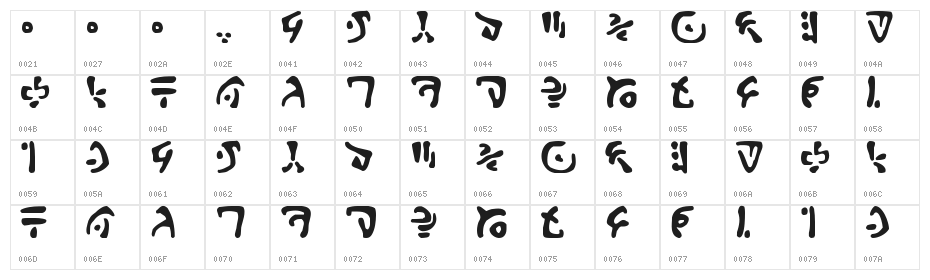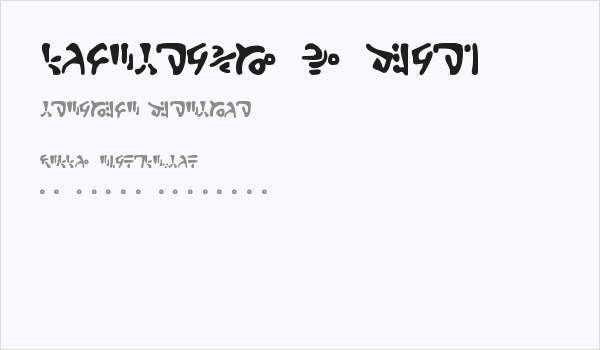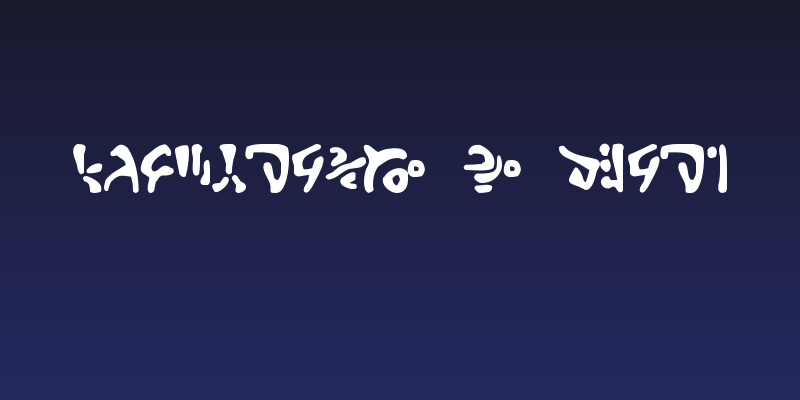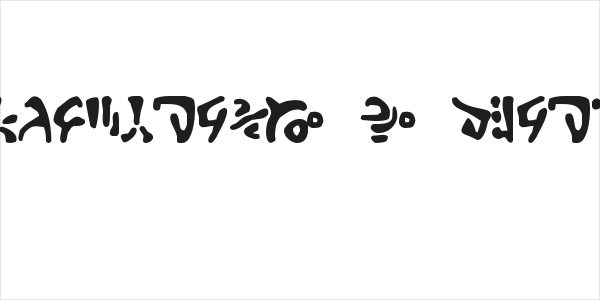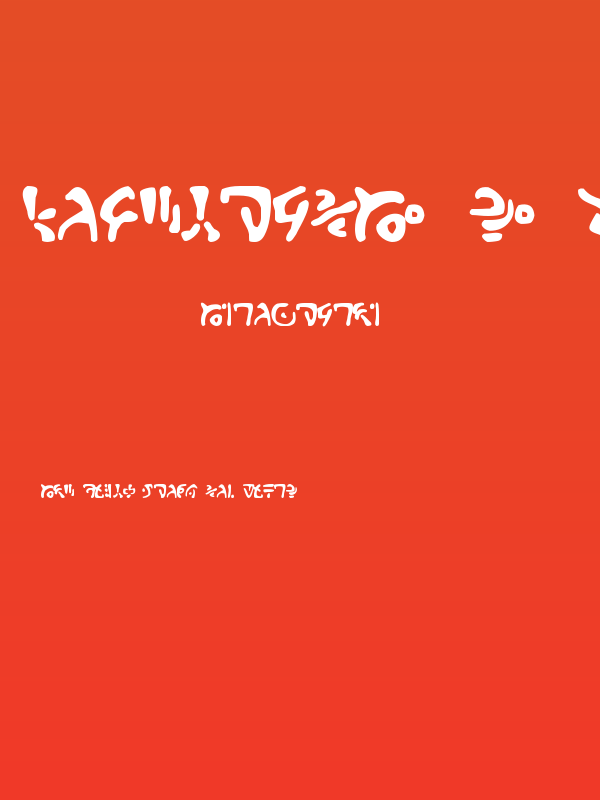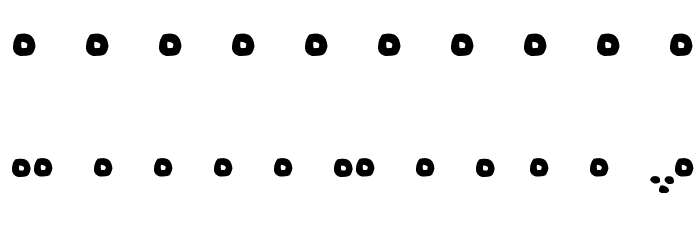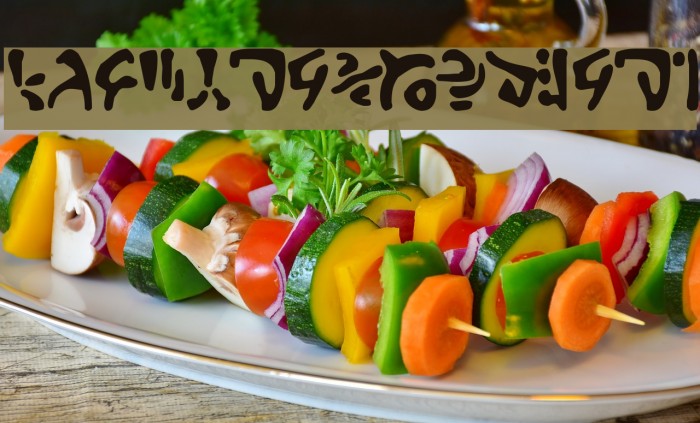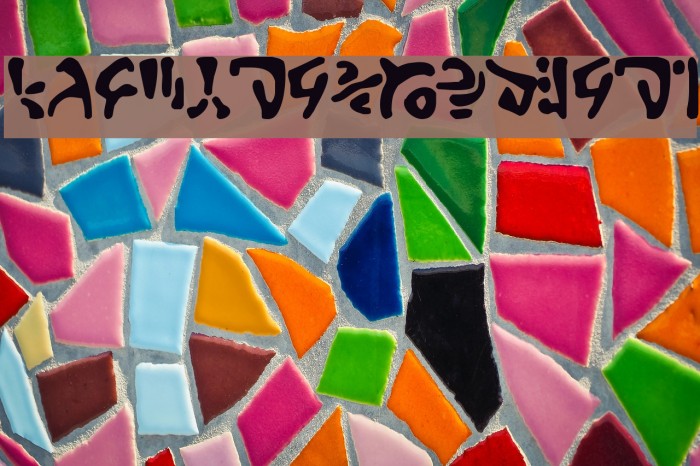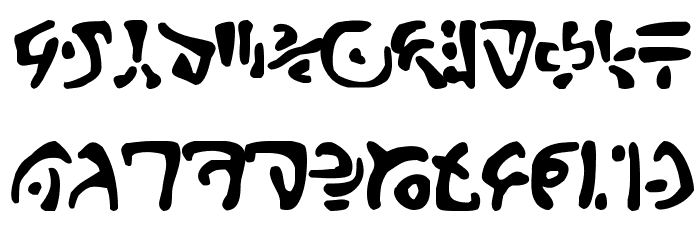
Lovecraft-s-Diary Font
Lovecraft-s-Diary Description
A highly stylized, cryptic typeface with abstract, glyph-like characters reminiscent of ancient or alien scripts. The forms are bold, rounded, and irregular, with a hand-drawn, mysterious appearance. Punctuation and numerals are represented by simple dots and geometric shapes.
| Overall Style | Decorative, Mysterious, Fantasy |
| Use Case | Logos, Titles, Posters, Themed Graphics |
| Proposed Projects | Horror-themed posters, fantasy book covers, escape room graphics, game titles, occult or Lovecraftian projects. |